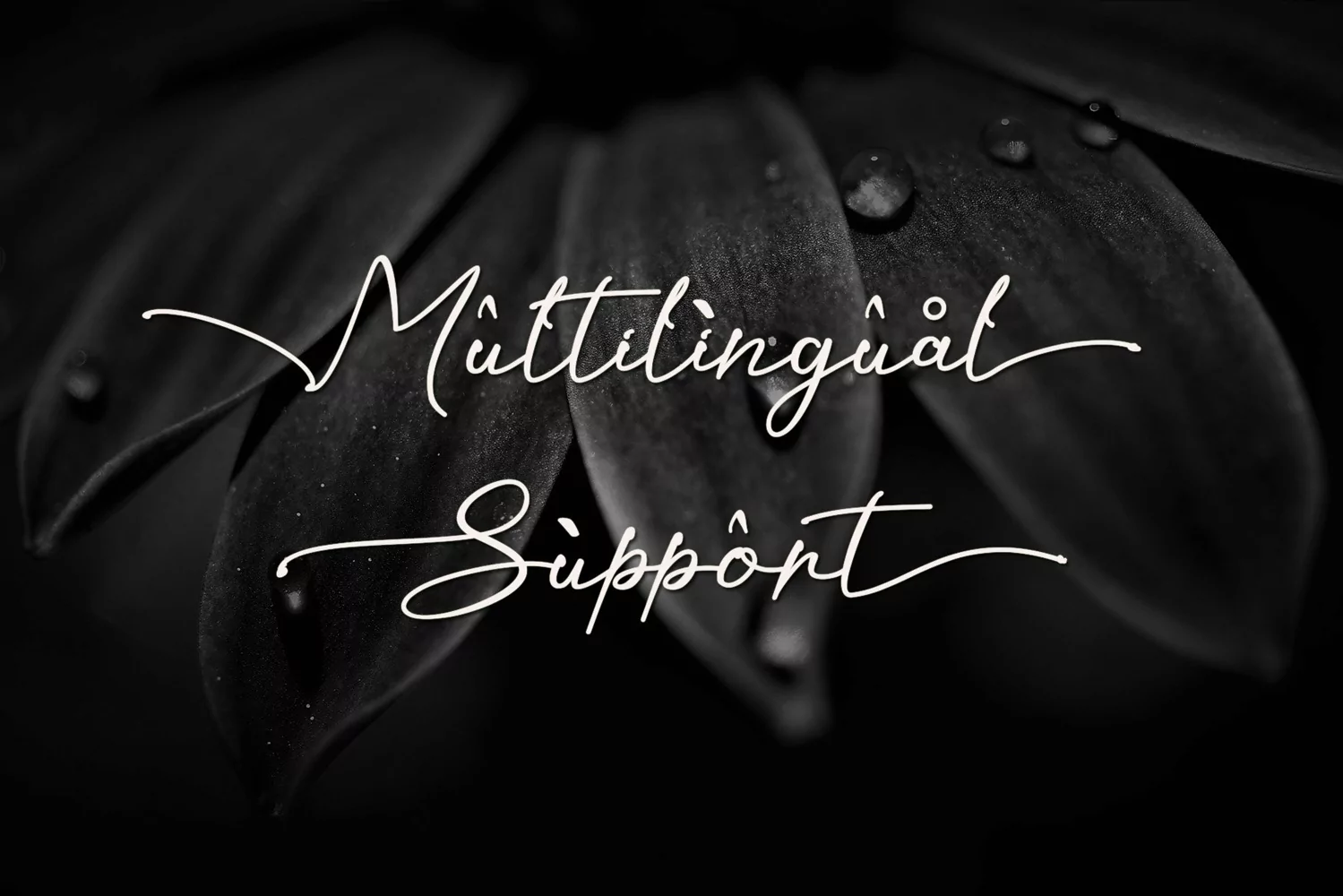
Beautiful Handwritten
KALIURANG SIGNATURE
Kaliurang Signature Font is a modern handwritten font by Letterafa Studio. It has flowing letters that will give your designs a unique and sweet look. Kaliurang Signature font is perfect; logos, greeting cards, a package design, a brand identity, craft design, any DIY project, book title, wedding invitation, packaging, and more.
- Basic Uppercase and Lowercase
- Uppercase Alternate (A-Z)
- Lowercase Swash (a-z)
- Ligature
- Number and Punctuation